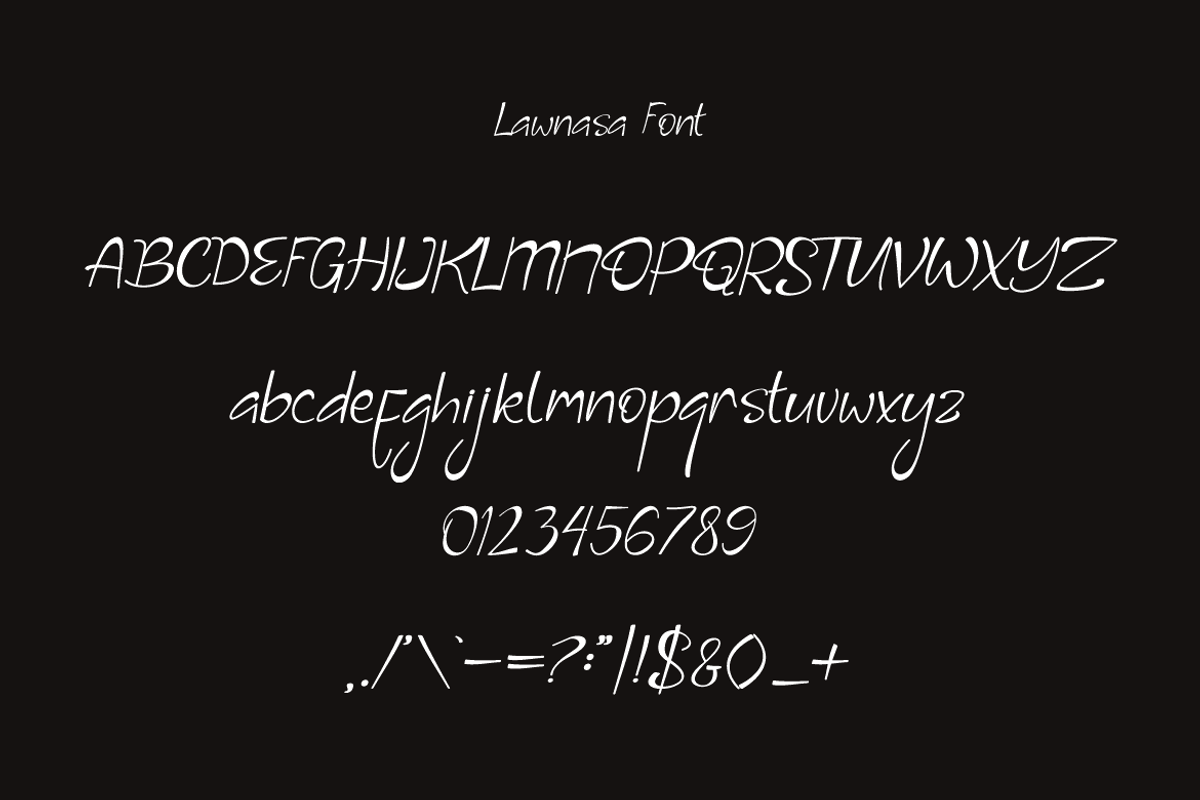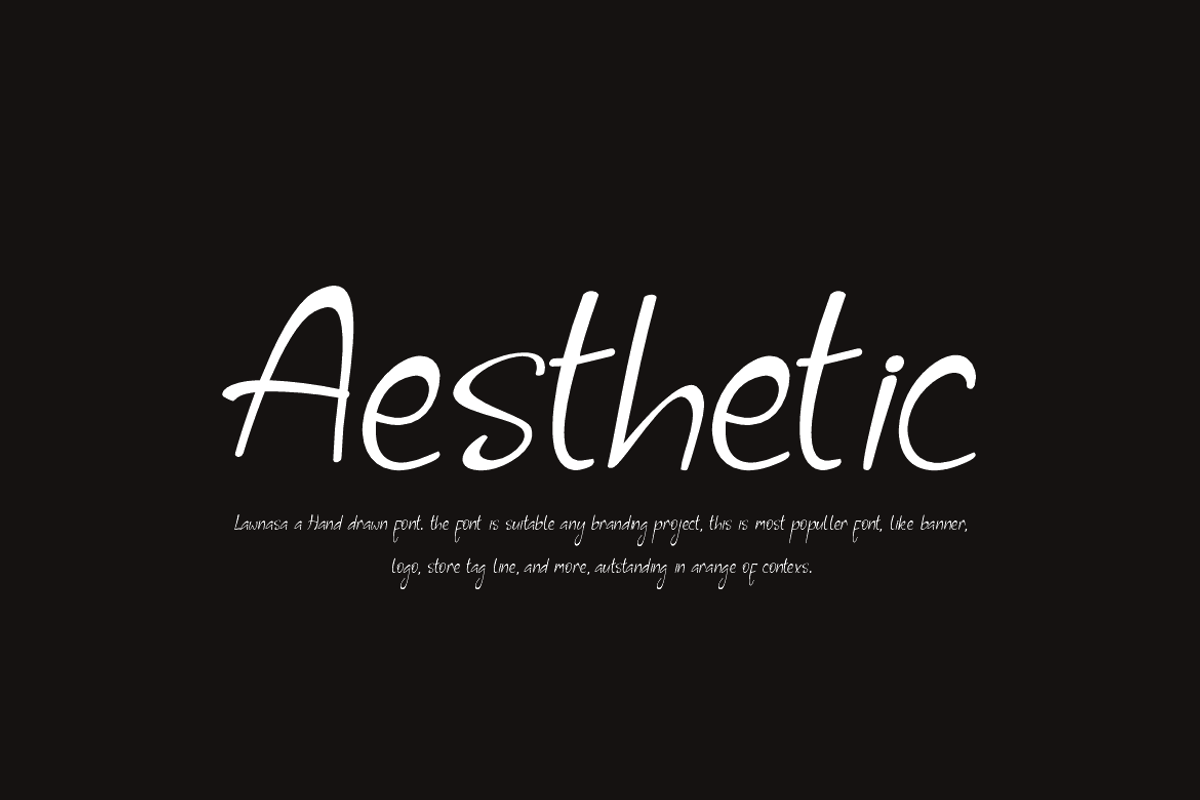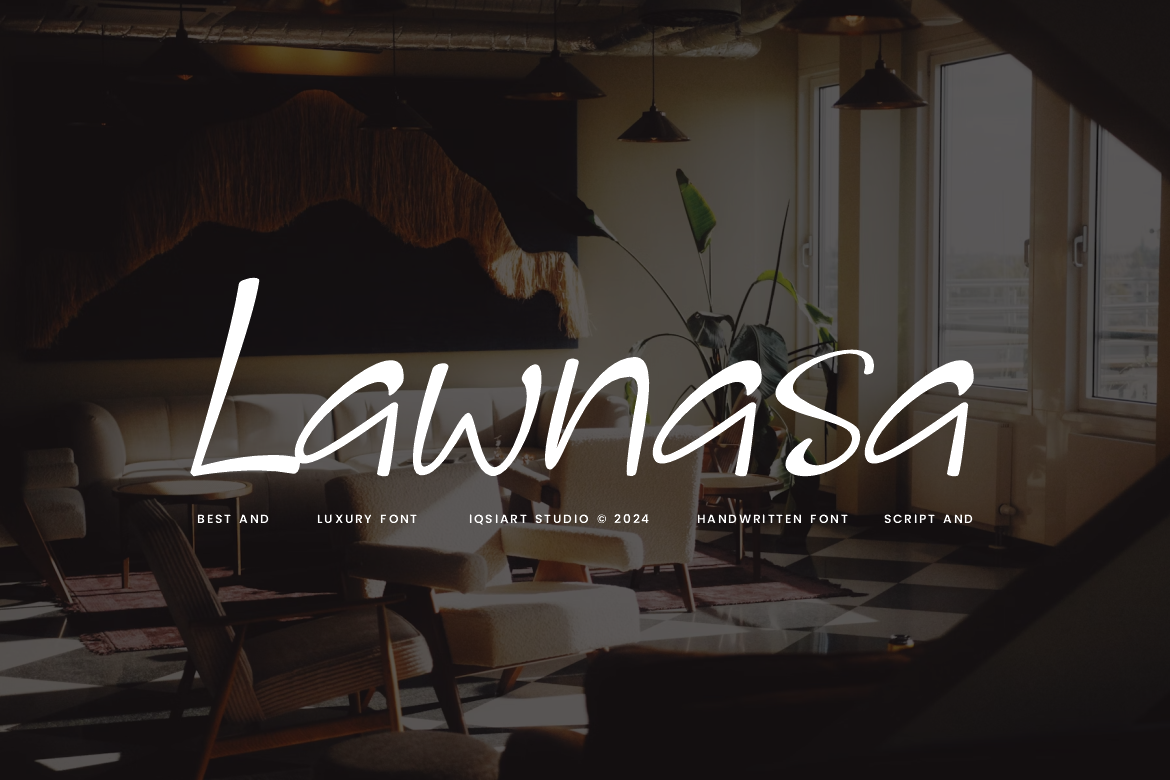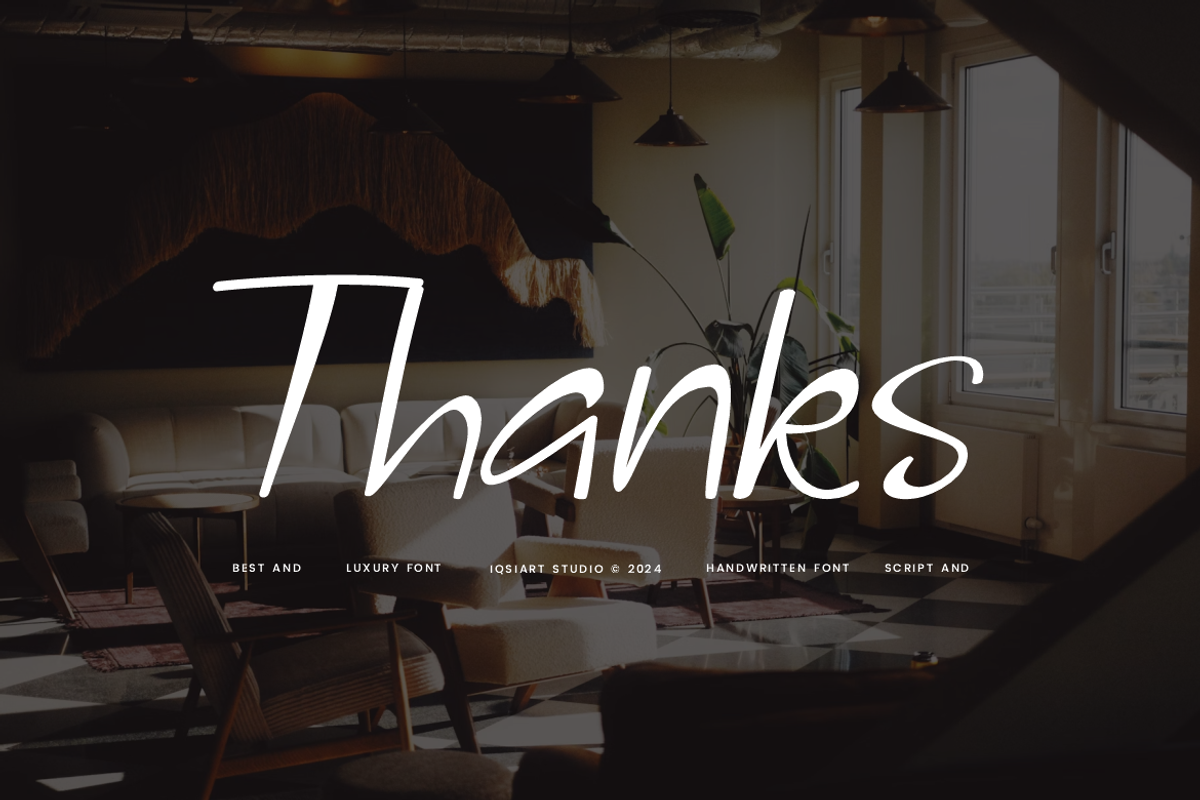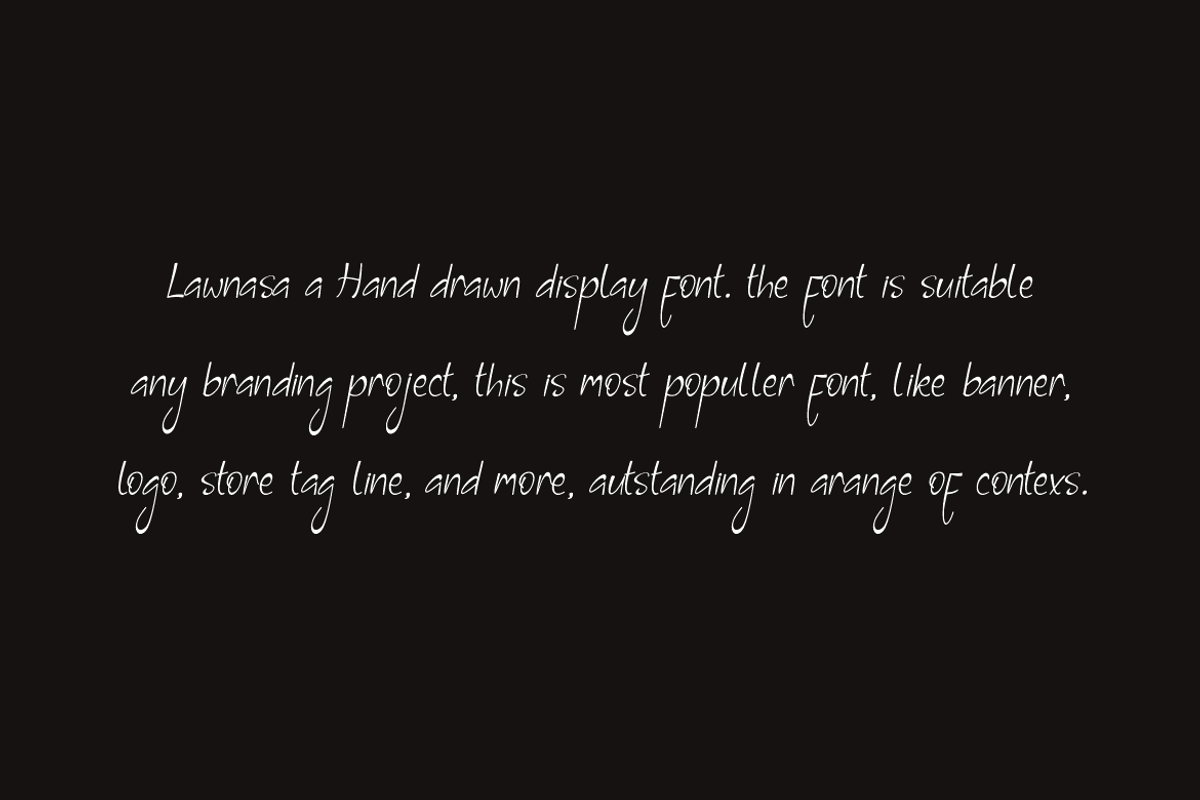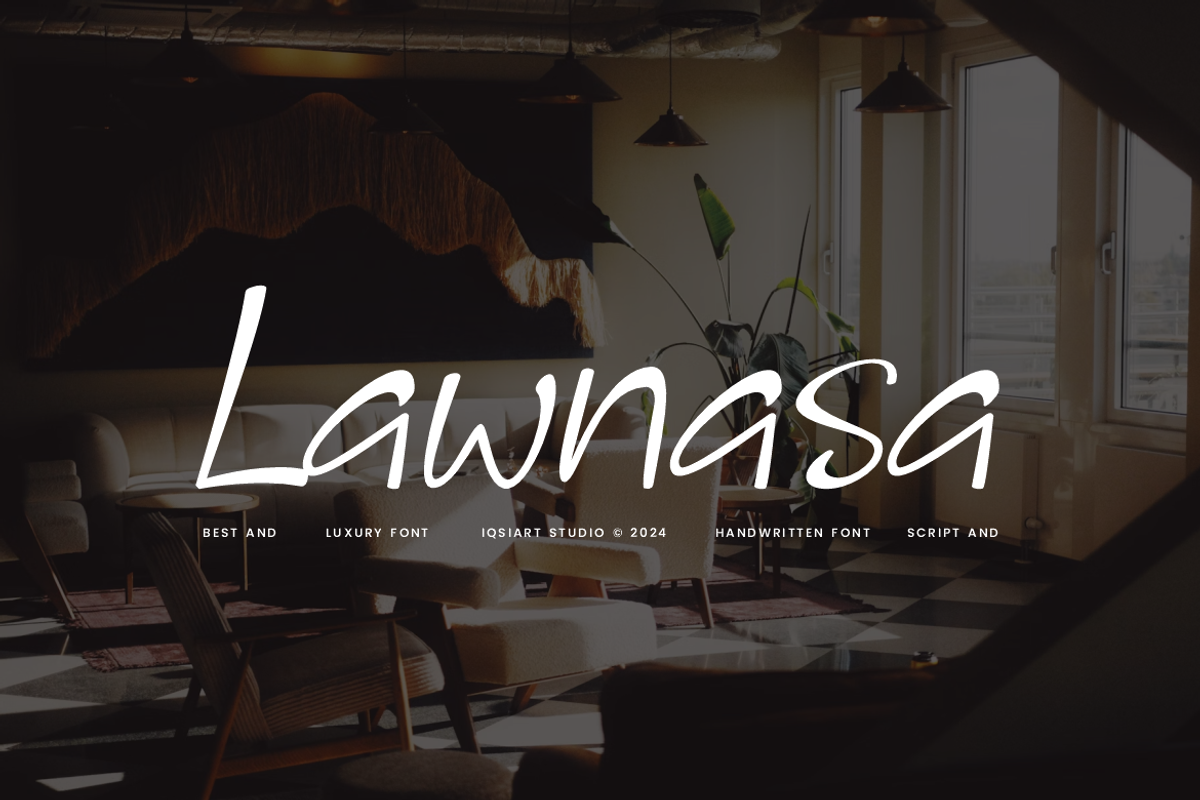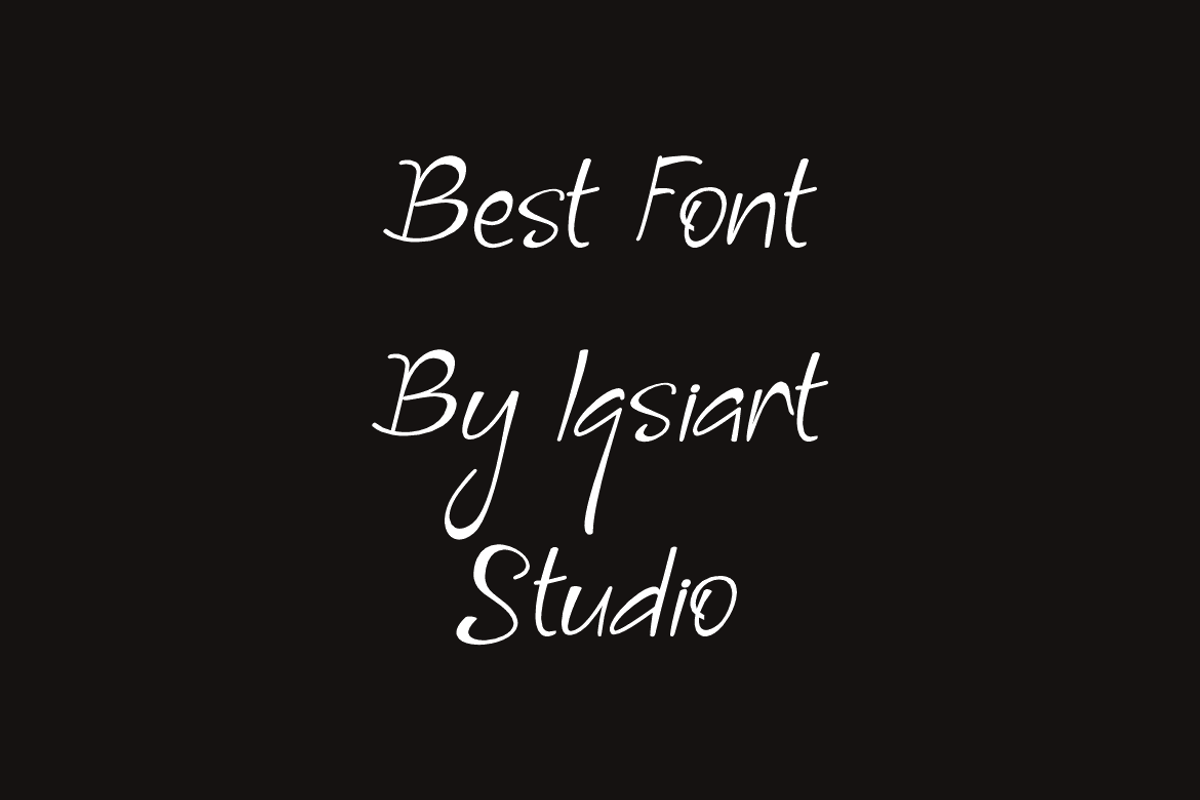
Lawnasa - Aesthetic Font
Lawnasa Font is a best and authentic display font. This font can be used for your various needs. We provide various themes and font styles. visit our profile to get a wide variety of themes and different font styles you need.